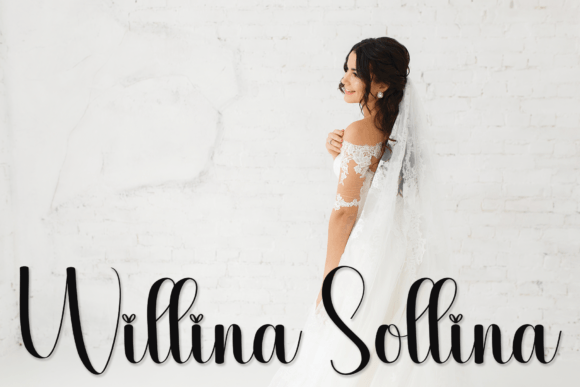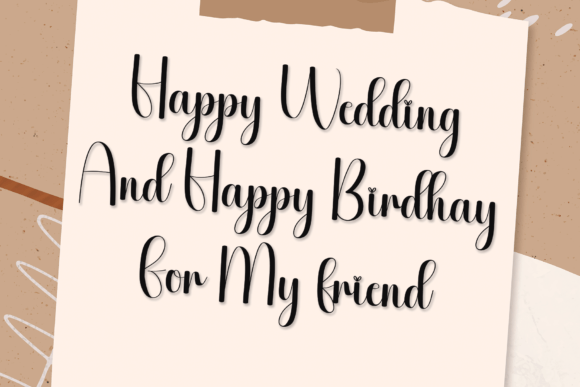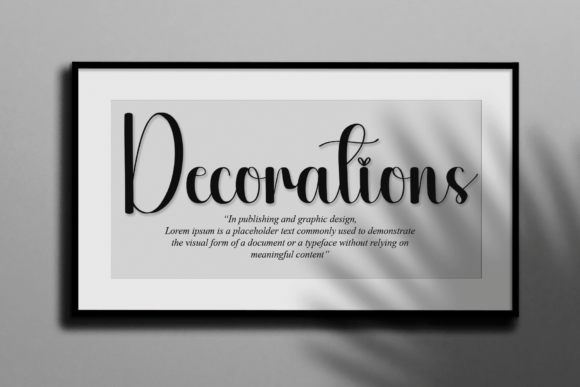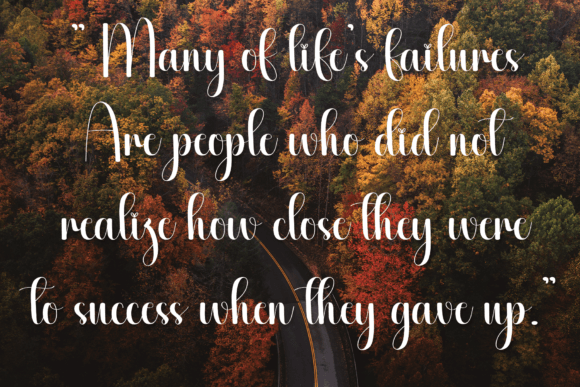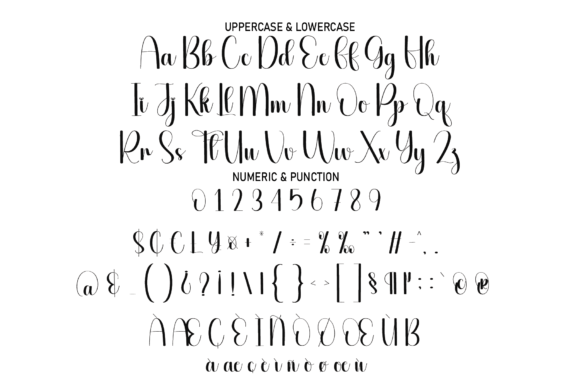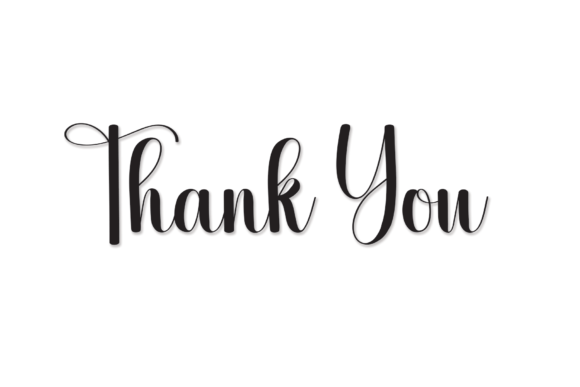
Introduction to Scathing Font
Have you ever been stuck in a creative rut, desperately searching for the perfect design element to bring your project to life? For many designers, that moment of inspiration can be elusive – until now. If you’re on the hunt for a free download that will elevate your creative project and leave a lasting impression, look no further than the Scathing Font.
This elegant, flowing handwritten font is the perfect design resource for those seeking a high-quality, unique touch. With its incredibly distinct and timeless style, Scathing Font is the perfect choice for designers looking to create spectacular designs that stand out from the crowd. Whether you’re working on a personal project or a commercial design, this versatile font is sure to impress.
With its transparent background and elegant touch, Scathing Font is a valuable addition to any designer’s toolkit. So why settle for a generic font when you can make a statement with Scathing Font?
Key Features of Scathing Font
- High-quality, professional font designed for creative projects, ideal for use as a design resource.
- Scalable font with a high resolution of 300 DPI, ensuring crisp and clear display on various devices.
- Unique, scathing design that adds an edgy touch to any creative project, making it stand out from the crowd.
Honest Review: Scathing Font
As a designer, I’m always on the lookout for high-quality design resources that can elevate my creative projects. Recently, I stumbled upon the Scathing Font, and I must say, it’s been a game-changer for me.
What works well with Scathing Font is its versatility and high-quality design. The font is available for free download, which is a huge plus for designers on a budget. The transparent background option allows for seamless integration with other design elements, making it a great addition to any project.
- ✨ Versatile design that works well for a variety of creative projects
- ✨ High-quality design that’s perfect for printing or digital use
- ✨ Transparent background option for seamless integration with other design elements
However, there are a few limitations to consider. The font may not be suitable for very small text sizes, and it can be a bit overwhelming when used in large quantities.
Overall, I’m thoroughly impressed with Scathing Font. Its high-quality design, versatility, and free download option make it a must-have design resource for any creative project. Whether you’re working on a logo, brochure, or website, Scathing Font is definitely worth checking out.
The Scathing Font is a high-quality, free download design resource perfect for adding a touch of sophistication to your creative project. With its transparent background, you can easily integrate it into various design platforms.
The Scathing Font is ideal for various design projects, including business cards, brochures, and marketing materials. You can also use it in creative projects such as graphic novels, comic books, and posters.